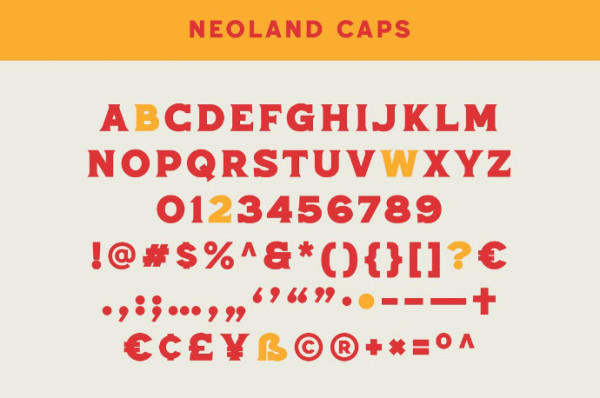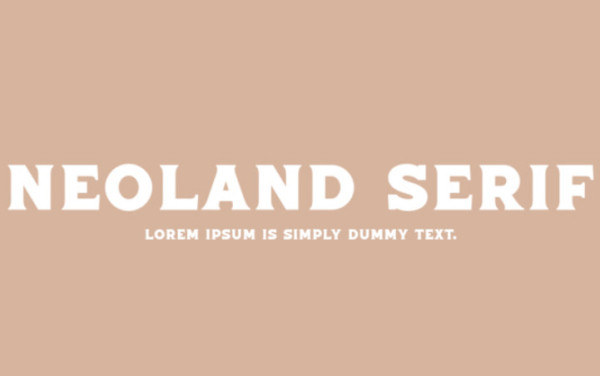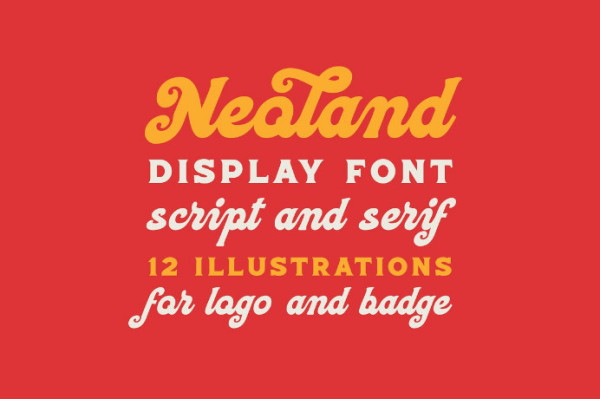
Neoland Serif Font
Neoland Serif Font – Neoland, it is a display font for logotype and badge. These collections contain script and serif font. This script font includes alternates and ligatures. The Neoland matches apply in some designs such as the logo, poster, label, badge, packaging, t-shirt, branding, quotes and more custom design.